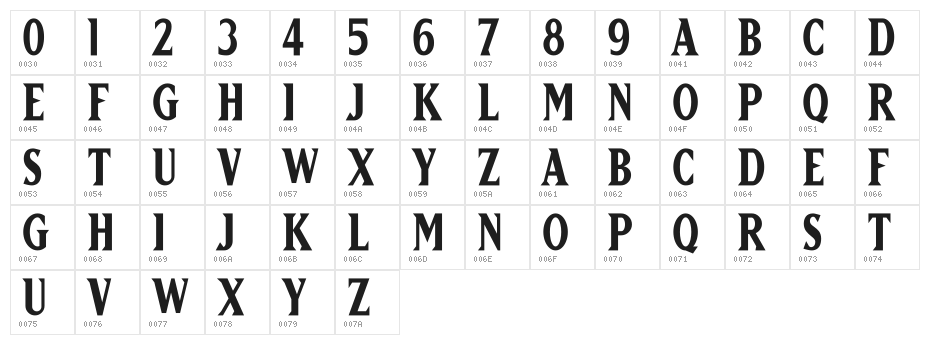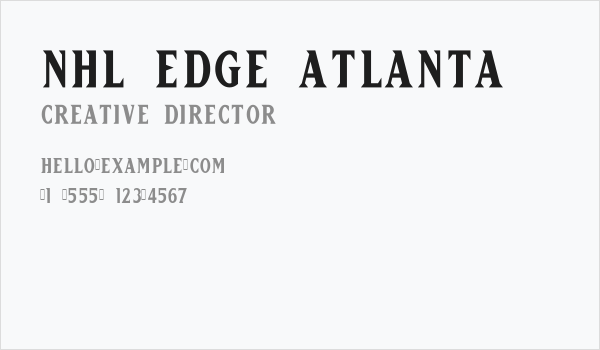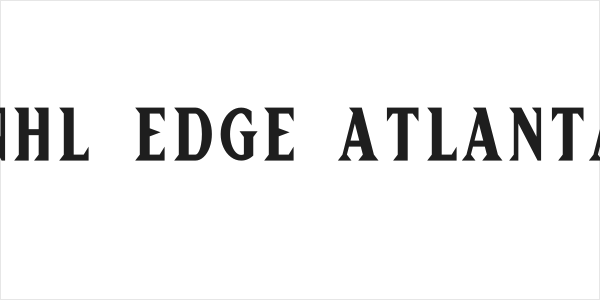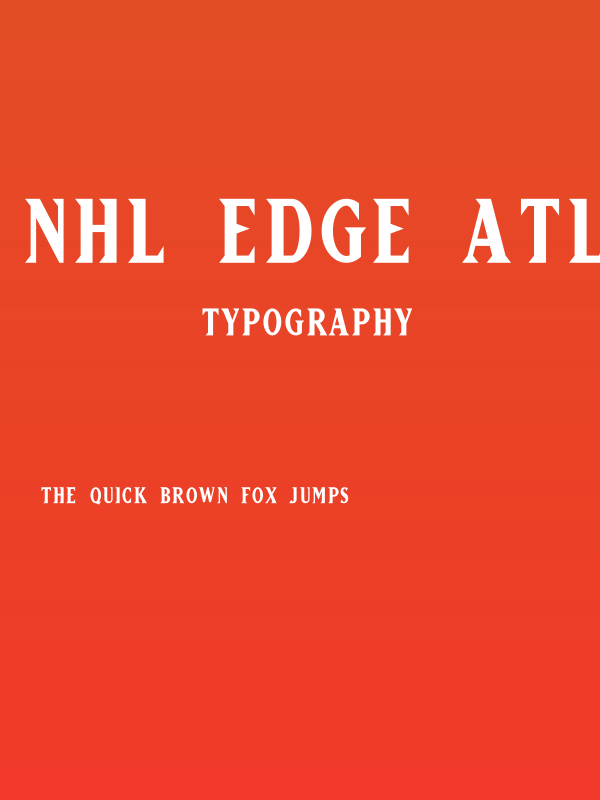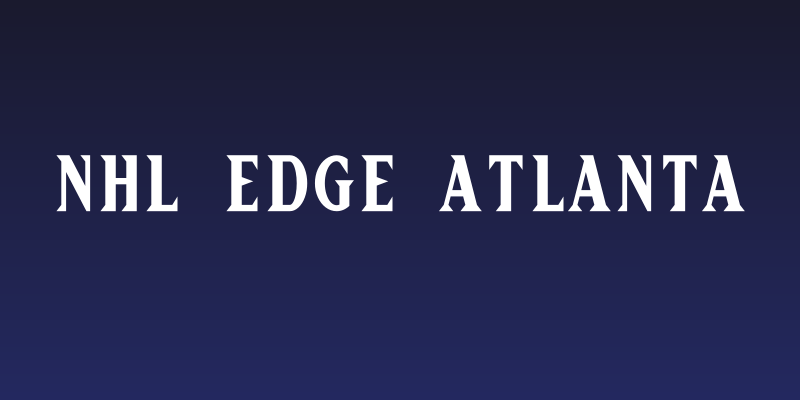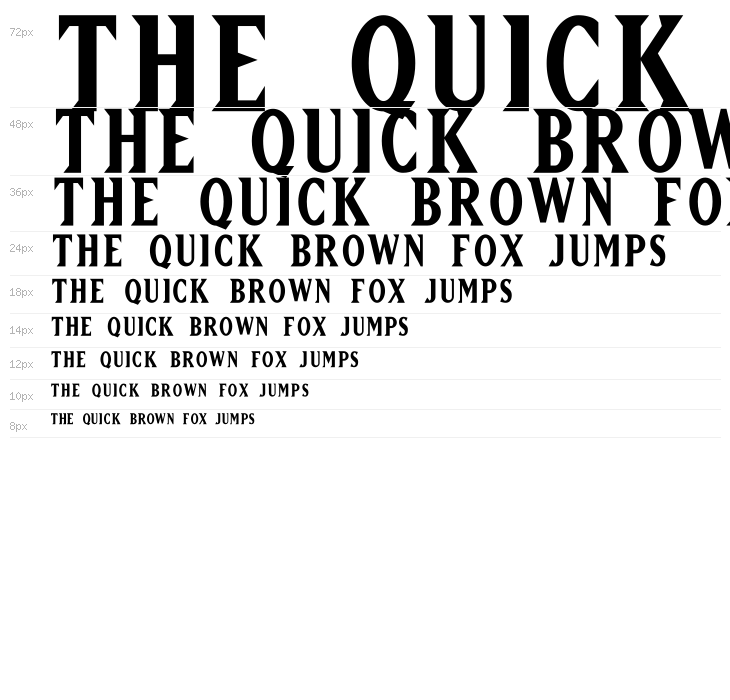
NHL Edge Atlanta Font
NHL Edge Atlanta Description
This font features a bold and assertive style with strong, angular serifs and a distinct presence. The uppercase letters are tall and commanding, while the lowercase letters maintain a consistent weight and structure. The numerals are clear and robust, designed to stand out with their bold strokes. The overall design is reminiscent of traditional serif fonts but with a modern twist, making it suitable for impactful headlines and branding. The spacing between characters is normal, allowing for readability while maintaining a cohesive look.
| Proposed Projects | Ideal for sports branding, headlines, posters, and any project requiring a strong, authoritative typeface. |